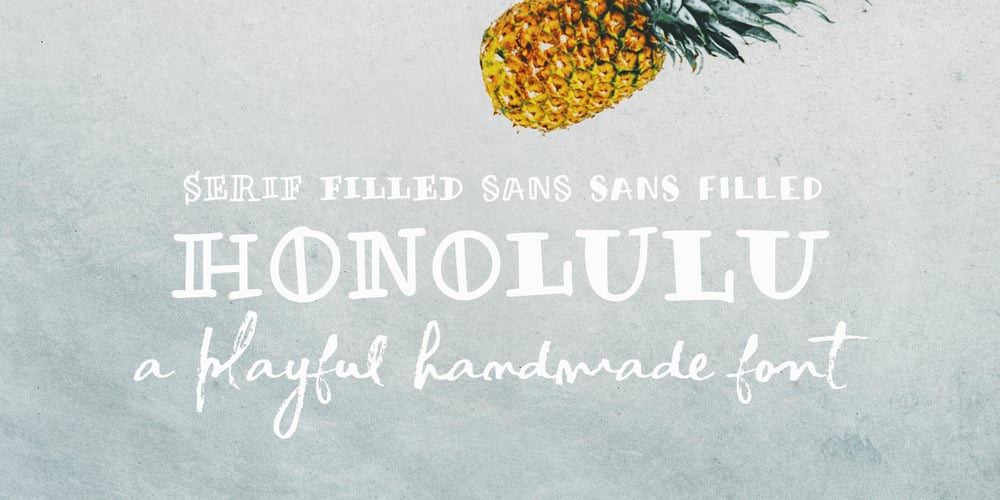
Honolulu Font Family was designed by Ana Parracho and published by Ana’s Fonts. Honolulu contains 8 styles and family package options. Honolulu is a cute hand-drawn font with four variations: – Regular, filled, sans and sans filled – Plus jumpy versions of each font (accessed by activating contextual alternates). Each font includes: – Two sets of caps – Numbers and punctuation – Multilingual support Fresh and perfect for the summer, in any design that needs a bold hand-drawn feel, such as postcards, notes and quotes, logos and branding.